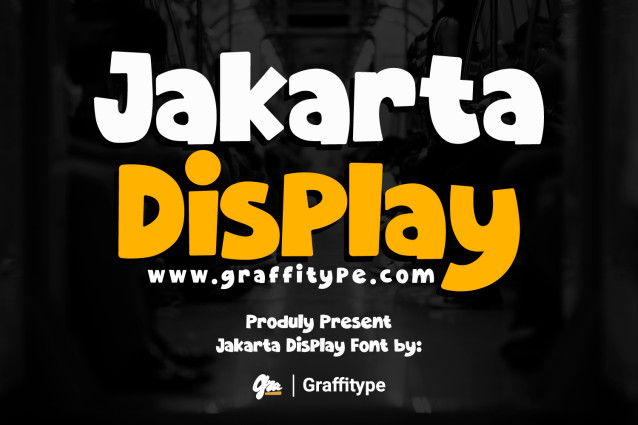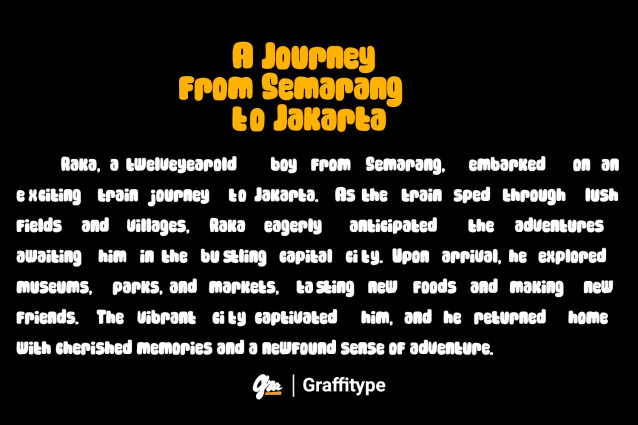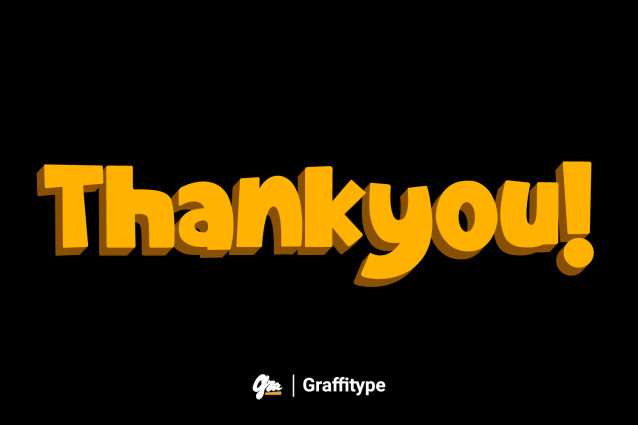
Jakarta Display Typeface
Jakarta Display is a modern and versatile display font designed to make a bold impression. Created by Graffitype Studio Font, this font inspired by the vibrant and dynamic city of Jakarta, this font features clean and bold, rounded edges, and a contemporary aesthetic that is perfect for headlines, posters, logos, and other large-format applications.